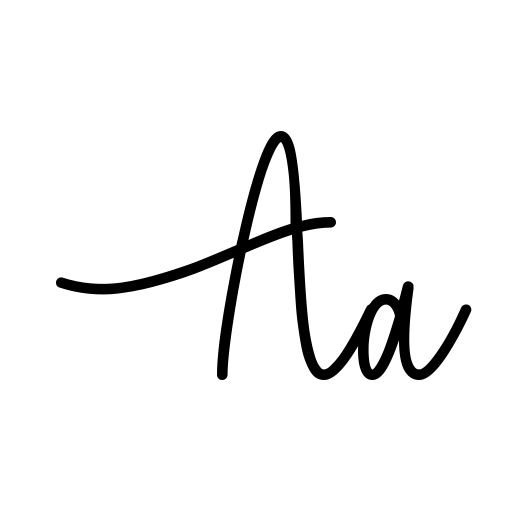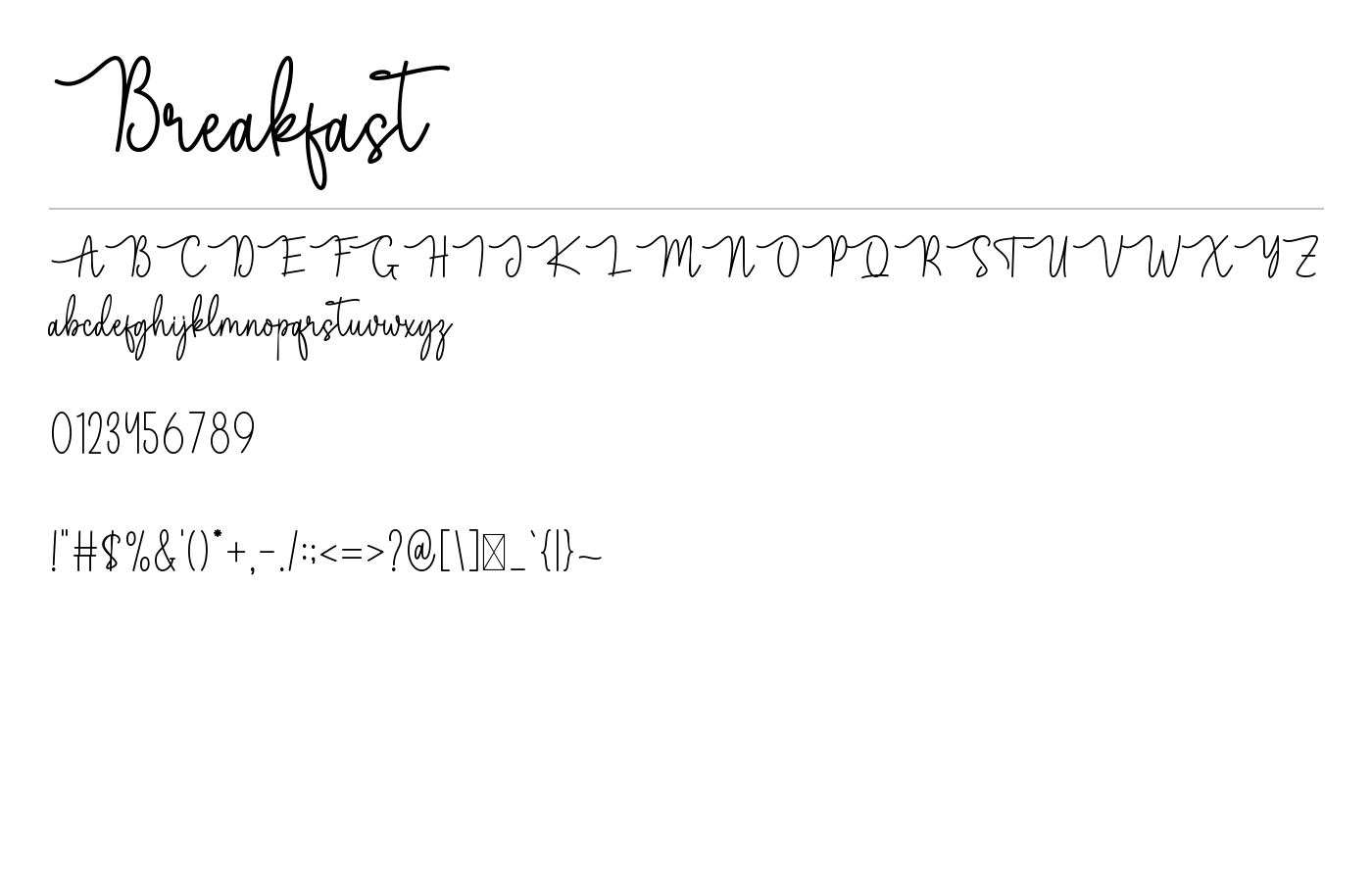
Breakfast Font is a delicate, hand-drawn script with a light weight and an airy, casual feel. Its tall, slender letterforms and playful strokes make it perfect for creative designs that aim to convey a charming, personal touch, such as invitations, greeting cards, or lifestyle branding. This font works best in headlines or short text, adding a whimsical and friendly vibe without sacrificing readability.
Breakfast Font
| Designer | Wahyu Setiyawan |